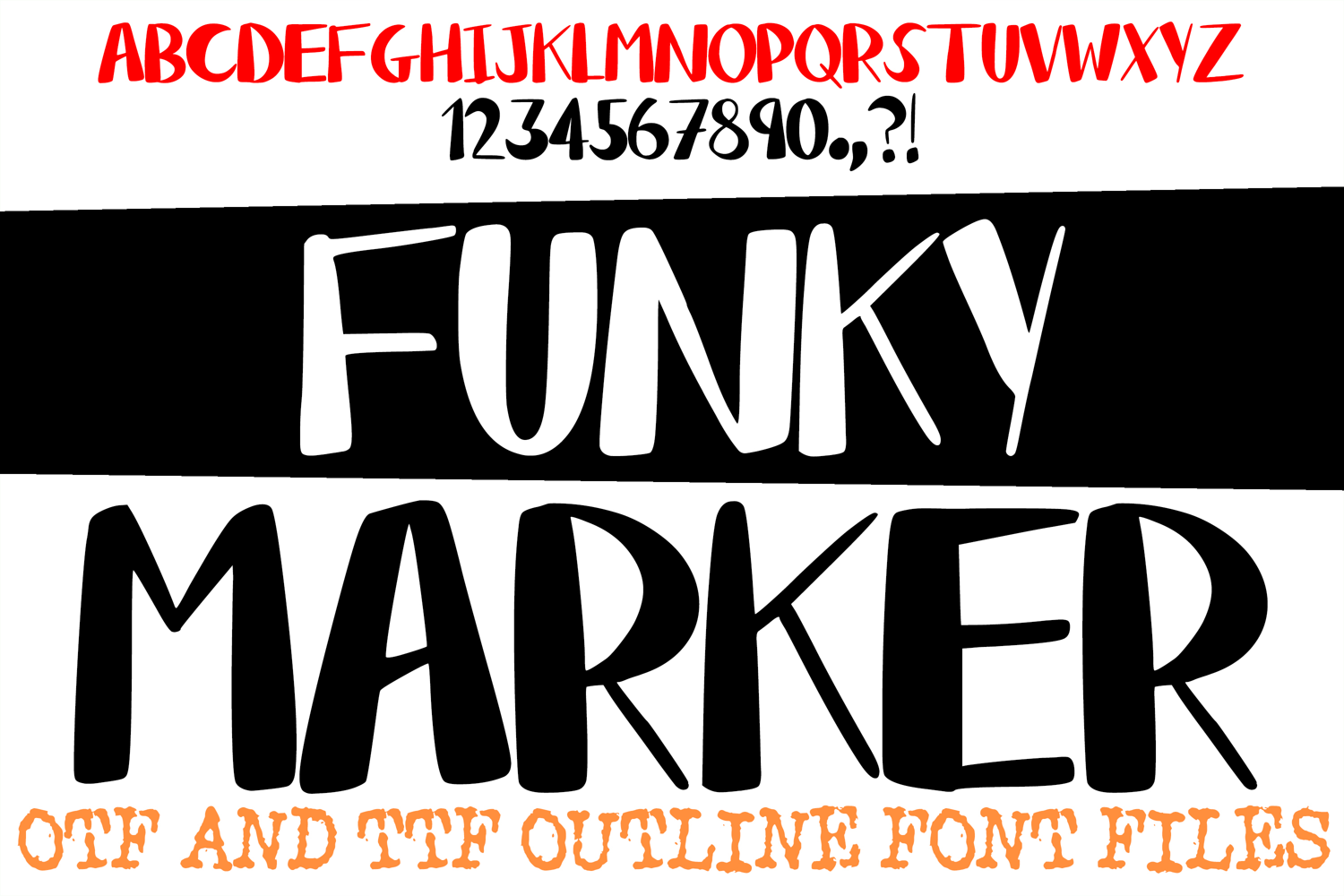
Funky Marker ABC Font Typeface Chunky Doodle Alphabet OTF Illustration by Squeeb Creative
Funky Marker ABC Font Typeface Chunky Doodle Alphabet OTF
Inject instant playfulness and energy into your creative projects with Funky Marker, a bold, hand-dr…